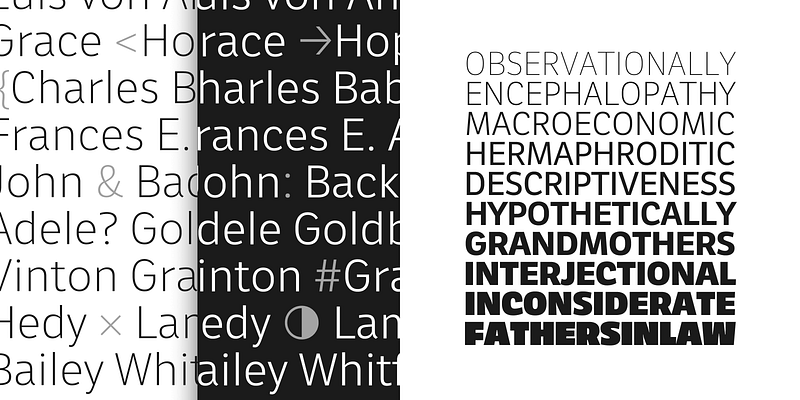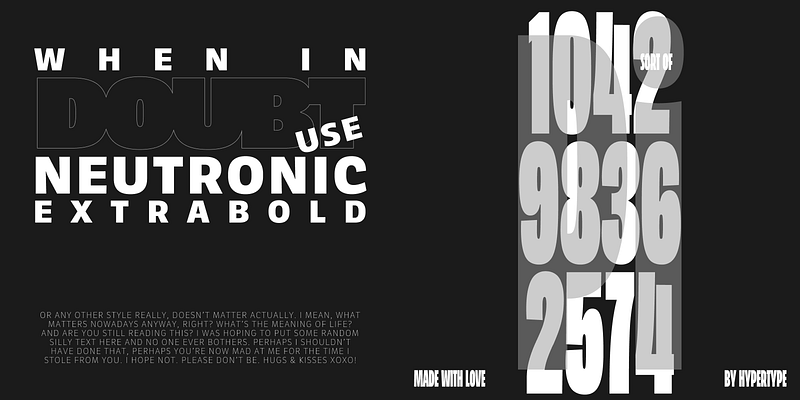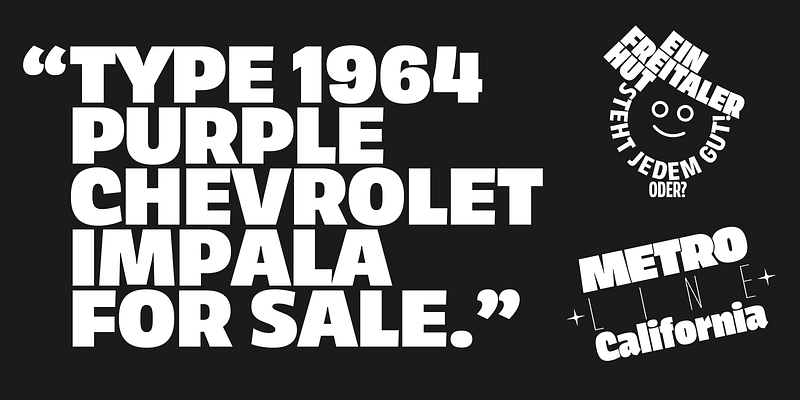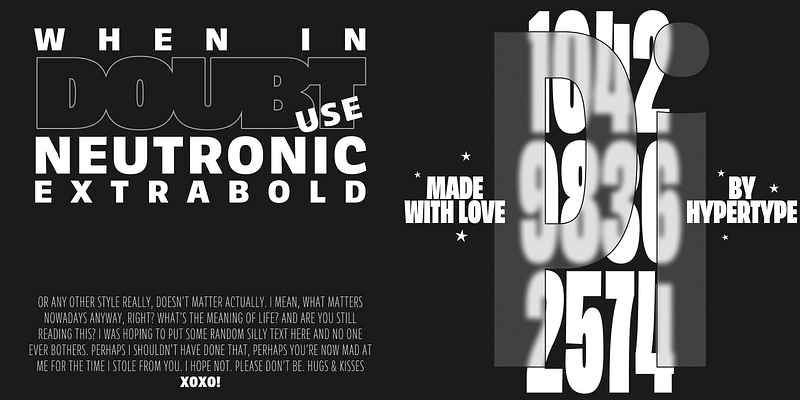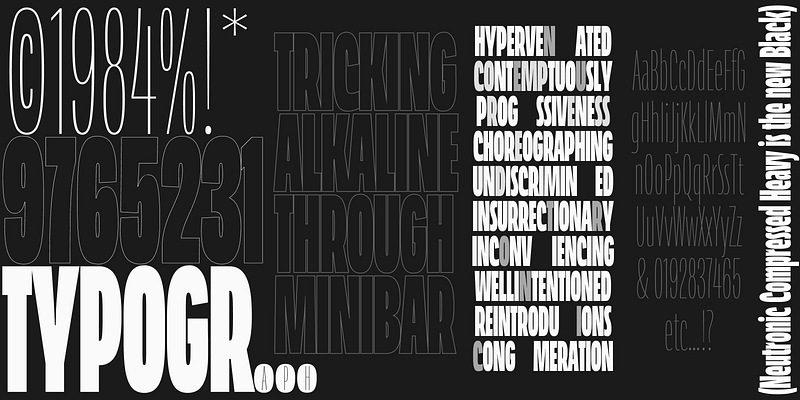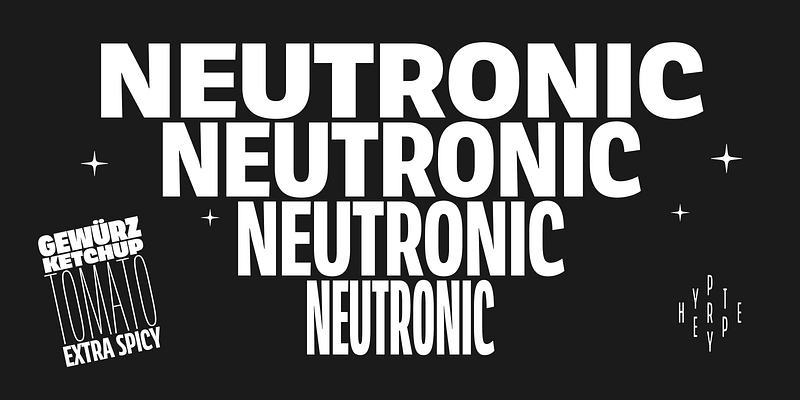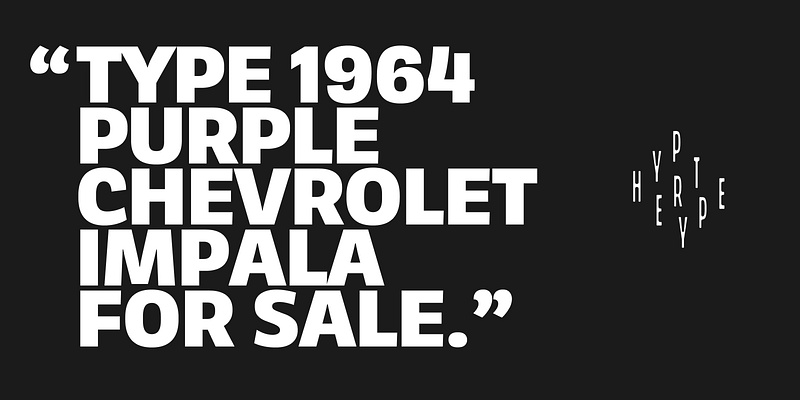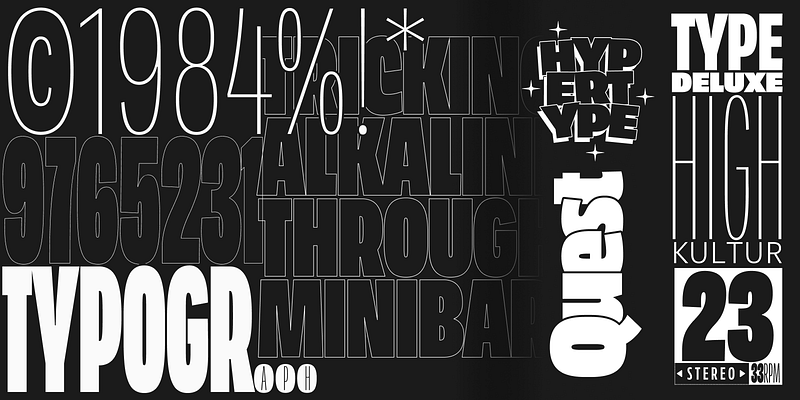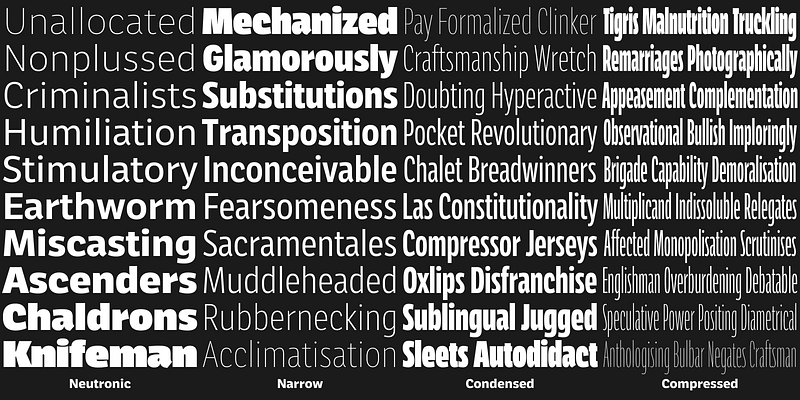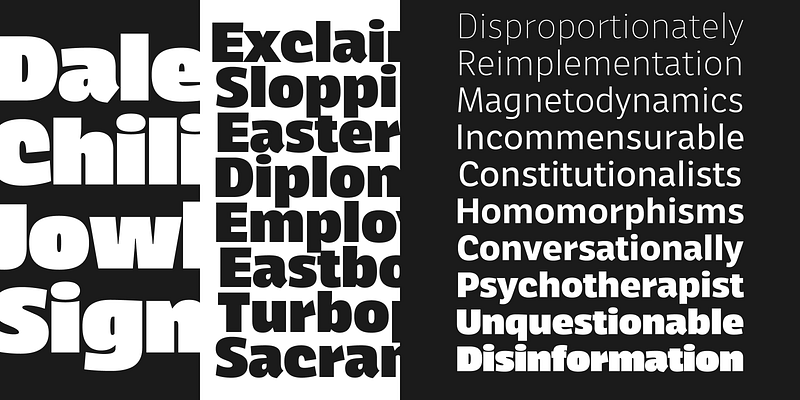
Neutronic is sure to make a lasting impression on your designs. With a weight range from very thin to heavy, it’s not only one of the boldest fonts but also one of the most versatile.
Its broad width palette, covering compressed and normal, provides endless design options that are perfect for capturing your brand’s personality. The compressed family is more organic and soft than most other condensed typefaces, adding a touch of personality and character to your designs that many other condensed fonts fail to achieve.
Designed to seamlessly integrate across all design platforms, it’s incredibly useful for branding animations and UI design. Its vertical metrics are carefully crafted to make text sit perfectly in buttons and align harmoniously with icons.
Supporting 222 languages, Neutronic is the ideal font for mutli-language use and corporate design. You can be confident that your designs will not only look great but also communicate effectively to a global audience.
Use Neutronic to create designs that stand out from the masses.